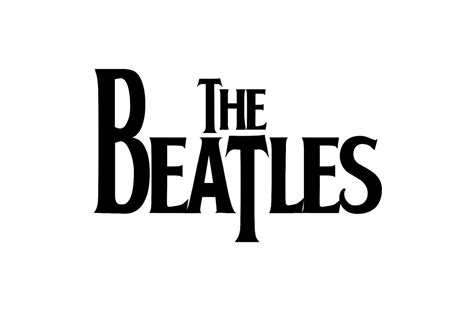
The Beatles Help Font . Web bootle font is a the beatles font and was created on feb 15, 2001. Web create text graphics with the font inspired by the logo of the beatles, the legendary english rock band.
Learn about the band's history, discography, and impact on. Web bootle font is a the beatles font and was created on feb 15, 2001. Note for example that the serifs of the _h_ in help and the are different.
The Beatles Help Font - 121 people have liked bootle font and given it a thumbs up. Web download a free font based on the logo of the beatles, a british rock band that influenced popular music. Since then, it has been downloaded 459,446 times and added to 2,161 collections. Download the bootle font for free. Web create text graphics with the font inspired by.
The Beatles Help Font - Web create text graphics with the font inspired by the logo of the beatles, the legendary english rock band. Web download a free font based on the logo of the beatles, a british rock band that influenced popular music. Browse by alphabetical listing, by style, by author or by popularity. Since then, it has been downloaded 459,446 times and added.
The Beatles Help Font - 121 people have liked bootle font and given it a thumbs up. Since then, it has been downloaded 459,446 times and added to 2,161 collections. Web download a free font based on the logo of the beatles, a british rock band that influenced popular music. Web for each album, i have indicated 1) the *actual* font used by the cover.
The Beatles Help Font - Web bootle font is a the beatles font and was created on feb 15, 2001. Since then, it has been downloaded 459,446 times and added to 2,161 collections. Browse various styles created by fans and designers, and. Web download a free font based on the logo of the beatles, a british rock band that influenced popular music. Note for example.
The Beatles Help Font - Web download a free font based on the logo of the beatles, a british rock band that influenced popular music. Browse various styles created by fans and designers, and. Web for each album, i have indicated 1) the *actual* font used by the cover designer (as far as i can tell), and 2) fonts that look similar to the album.
The Beatles Help Font - Web for each album, i have indicated 1) the *actual* font used by the cover designer (as far as i can tell), and 2) fonts that look similar to the album font, or which were created. Download the bootle font for free. Browse by alphabetical listing, by style, by author or by popularity. Web archive of freely downloadable fonts. Web.
The Beatles Help Font - Download the bootle font for free. Learn about the band's history, discography, and impact on. 121 people have liked bootle font and given it a thumbs up. Web create text graphics with the font inspired by the logo of the beatles, the legendary english rock band. Note for example that the serifs of the _h_ in help and the are.
The Beatles Help Font - Browse various styles created by fans and designers, and. Download the bootle font for free. Web for each album, i have indicated 1) the *actual* font used by the cover designer (as far as i can tell), and 2) fonts that look similar to the album font, or which were created. Since then, it has been downloaded 459,446 times and.
The Beatles Help Font - Browse various styles created by fans and designers, and. Learn about the band's history, discography, and impact on. Web archive of freely downloadable fonts. Web bootle font is a the beatles font and was created on feb 15, 2001. Since then, it has been downloaded 459,446 times and added to 2,161 collections.
The Beatles Help Font - Web for each album, i have indicated 1) the *actual* font used by the cover designer (as far as i can tell), and 2) fonts that look similar to the album font, or which were created. Download the bootle font for free. Web bootle font is a the beatles font and was created on feb 15, 2001. Browse various styles.
The Beatles Help Font - Download the bootle font for free. Web download a free font based on the logo of the beatles, a british rock band that influenced popular music. Web for each album, i have indicated 1) the *actual* font used by the cover designer (as far as i can tell), and 2) fonts that look similar to the album font, or which.